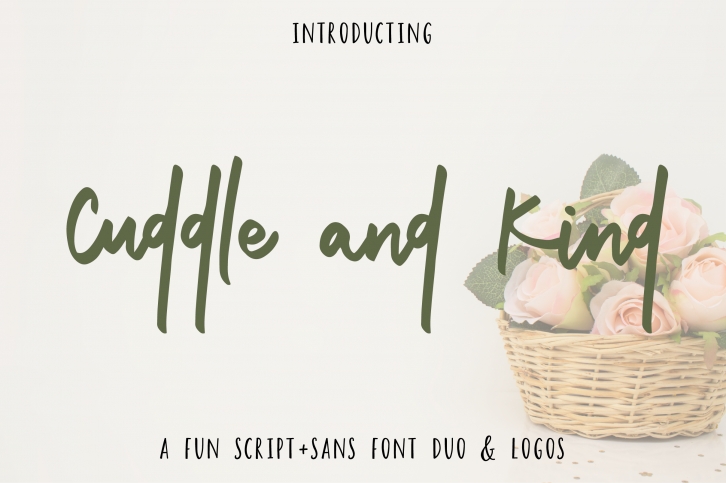
Cuddle and Kind Duo Logos is a gorgeous font that was realeased on September 6, 2017. The font can be used in many style contexts and design environments. Perfect for invitations, magazines, websites, logos, and more! It was designed by theinkaffair and the file size is 13.78 MB. Thanks for checking out this font!